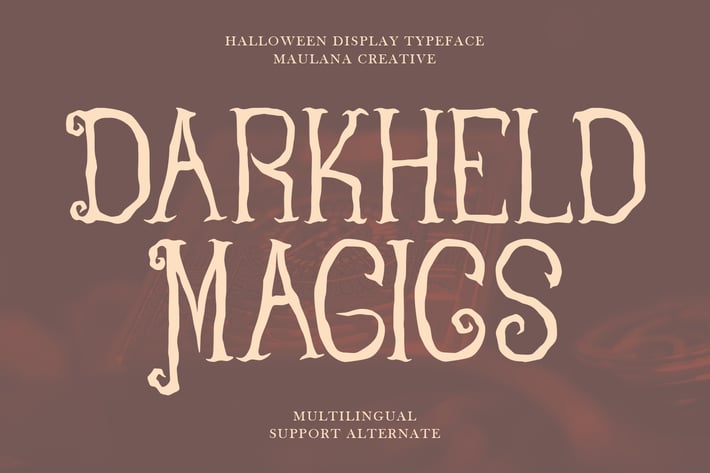
Darkheld Magics Halloween Display Typeface
Darkheld Magics halloween display typeface. Heavy stroke, fun character with a bit of ligatures. To give you an extra creative work. Darkheld Magics halloween display typeface support multilingual more than 100+ language. This font is good for logo design, Social media, Movie Titles, Books Titles, a short text even a long text letter and good for your secondary text font with script or serif. Make a stunning work with Darkheld Magics halloween display typeface.